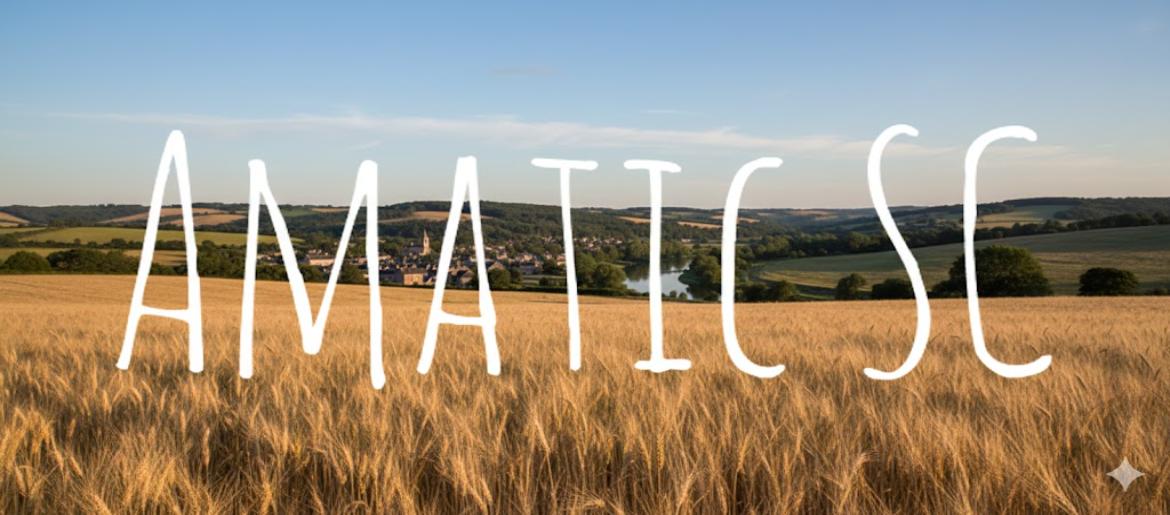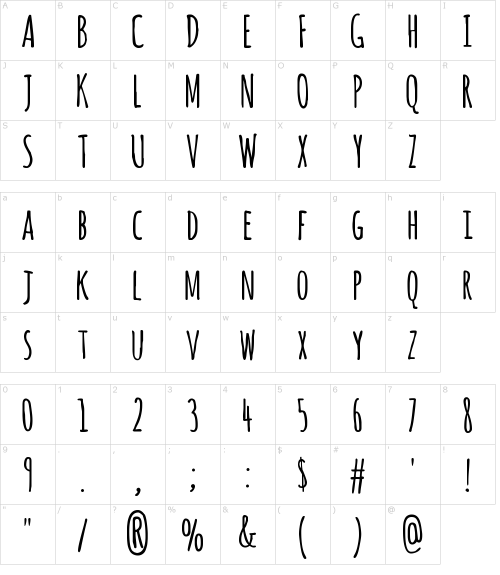
Amatic Font
Amatic Font (often known as Amatic SC) is a tall, hand-drawn display typeface with a casual, playful personality. Its narrow, slightly irregular strokes give it a friendly and artistic feel, making it perfect for posters, headlines, social media graphics, children’s designs, and creative branding.
➤ Font Name: Amatic SC
➤ Designer: Vernon Adams
➤ Style: Handwritten